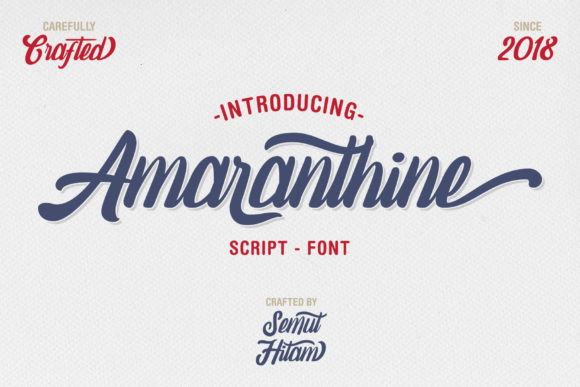
The Amaranthine Script Font: A Designer’s Dream Come True
I’ll never forget the time I was working on a branding project for a luxury wedding planner, and I just couldn’t find the right font to capture the essence of elegance and sophistication. The client wanted something that exuded vintage charm, yet screamed modern style. I scoured the internet, tried out countless fonts, and still, nothing seemed quite right. That was until I stumbled upon the Amaranthine script font. ✨
It was love at first sight! The smooth, flowing lines, the intricate details, and the unmistakable vintage flair all came together to create a font that was both striking and refined. I knew immediately that it was the perfect fit for my project, and I’ve been obsessed with it ever since.
- ✨ Smooth, elegant lines that are perfect for creating sophisticated designs
- ✅ Vintage flair that adds a touch of classic charm to any project
- 🔥 Attention-grabbing – this font is sure to make your design stand out from the crowd
A Few Quirks to Consider
While Amaranthine is an amazing font, it’s not without its limitations. Here are a few things to keep in mind:
- 🤔 May not be suitable for very small font sizes – the intricate details can get lost if the font is too small
- ⚠️ Some characters may not work well in all contexts – be sure to test the font thoroughly in your design
- Experiment with OpenType features, such as glyphs and stylistic alternates, to add extra flair to your design
The Story Behind Amaranthine
Amaranthine was designed by a talented typographer who drew inspiration from classic calligraphy and vintage lettering. The goal was to create a font that was both elegant and eye-catching, with a unique personality that would set it apart from more traditional fonts. The result is a font that’s perfect for designers who want to add a touch of sophistication and whimsy to their work.